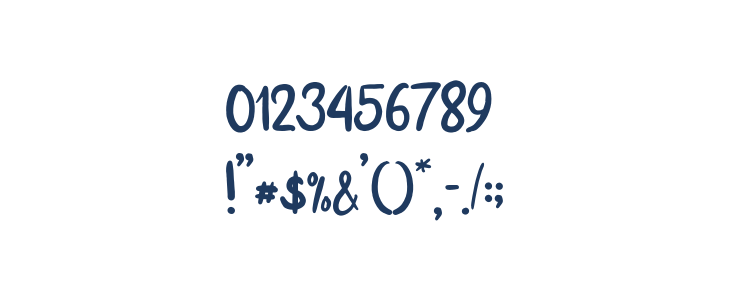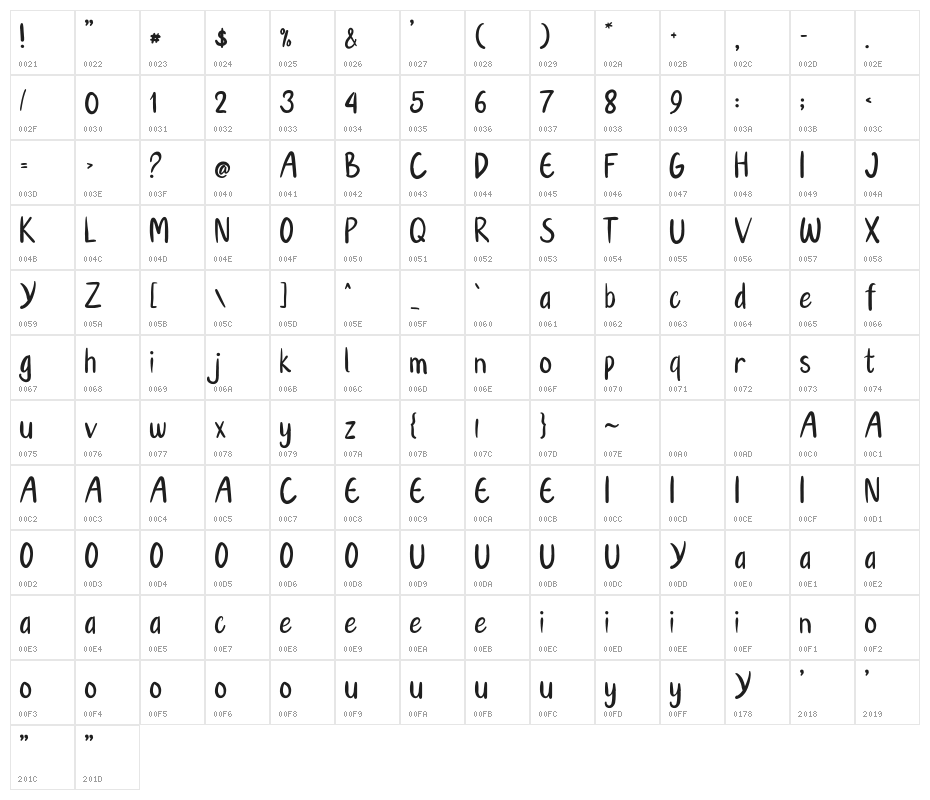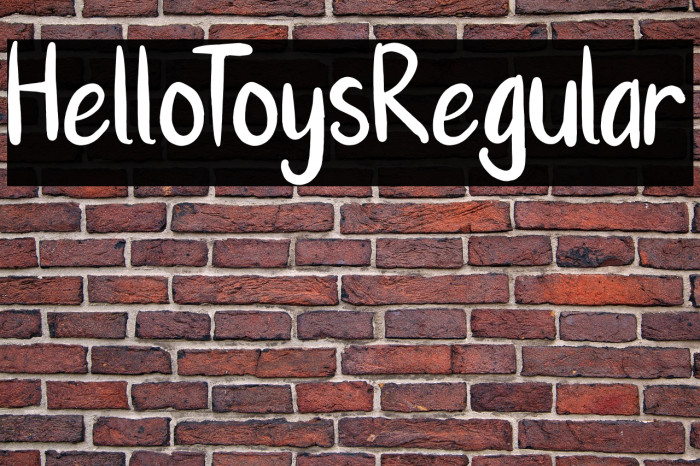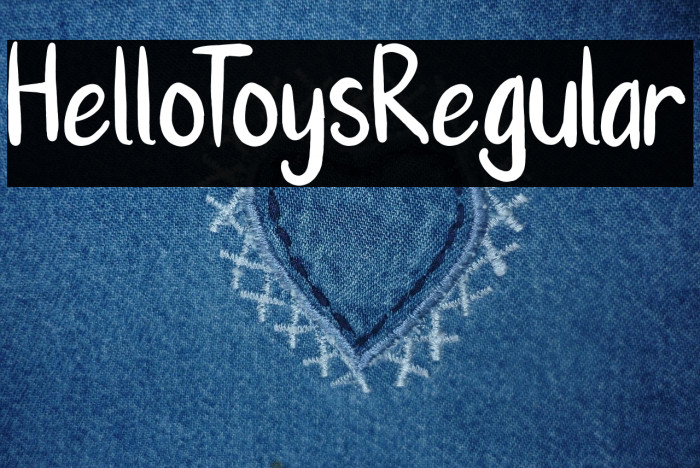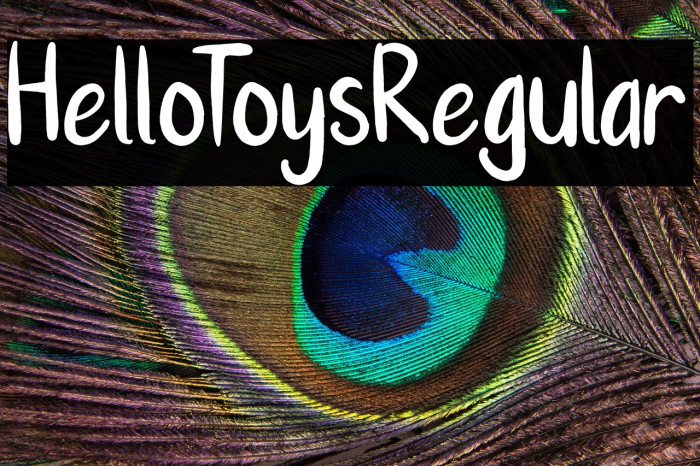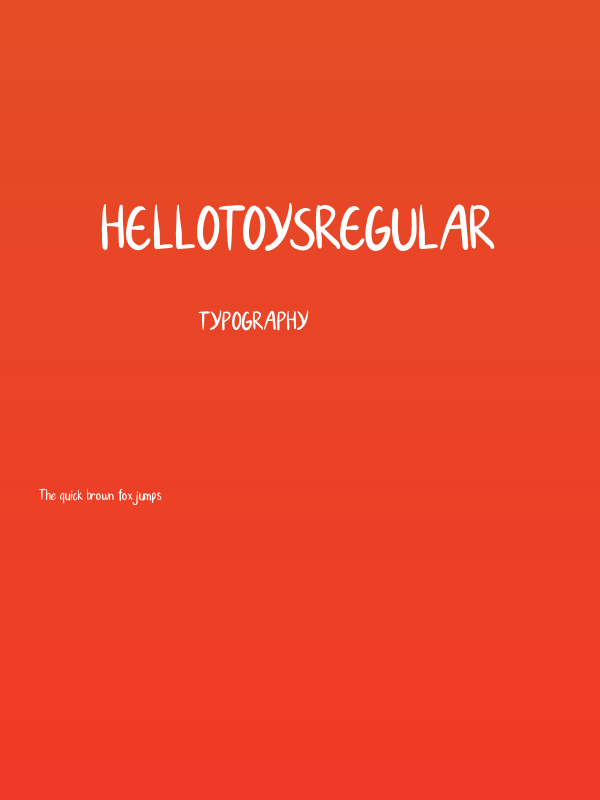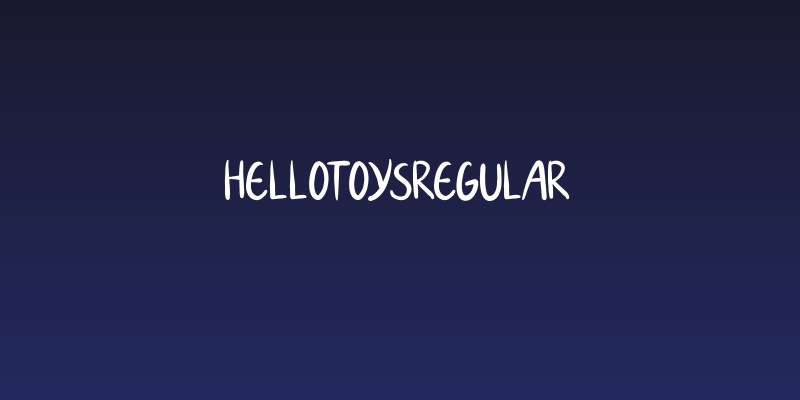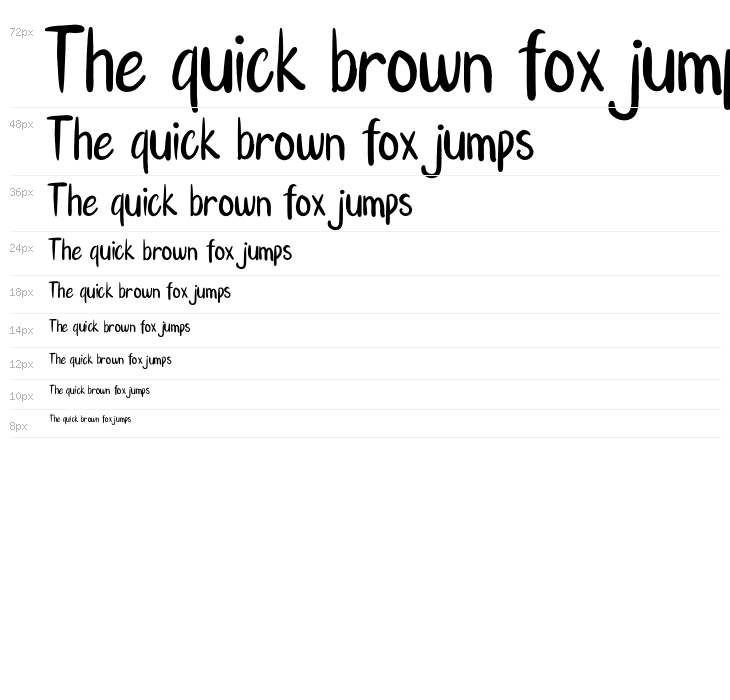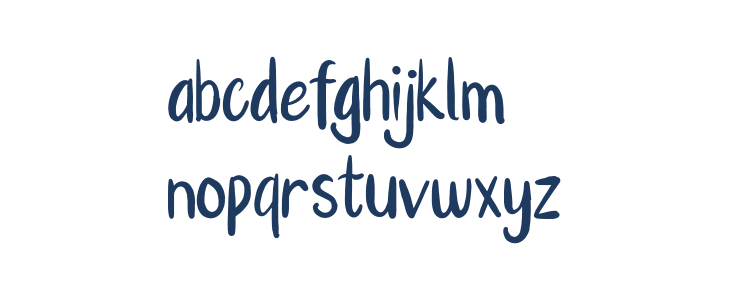
HelloToysRegular Font
HelloToysRegular Description
This playful and whimsical font features a handwritten style with a casual and friendly appearance. The letters are slightly uneven, adding a touch of authenticity and charm. The strokes are smooth and rounded, giving it a soft and approachable feel. The uppercase and lowercase letters maintain a consistent style, while the numbers and special characters complement the overall design. This font is versatile and can be used to convey a sense of fun and creativity.
| Overall Style | Playful |
| Use Case | Headlines, Logos, Informal Text |
| Proposed Projects | Ideal for children's books, playful branding, greeting cards, and creative projects. |